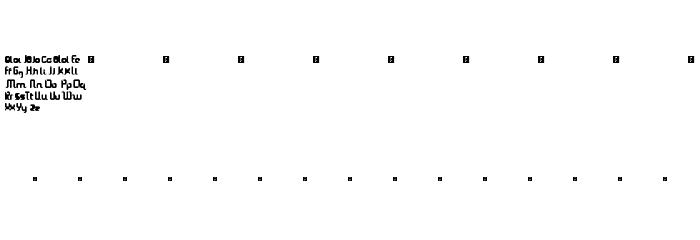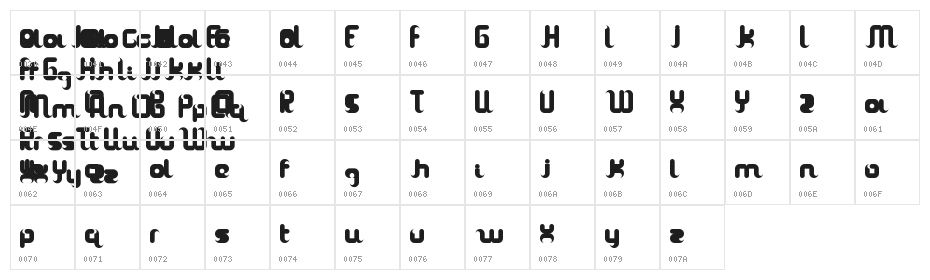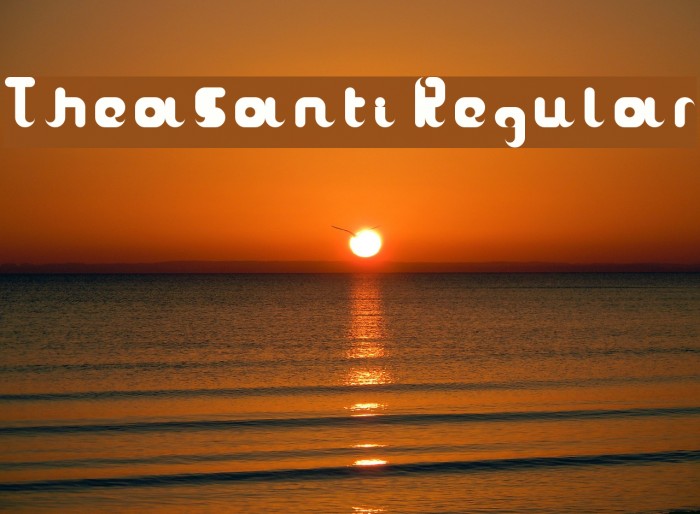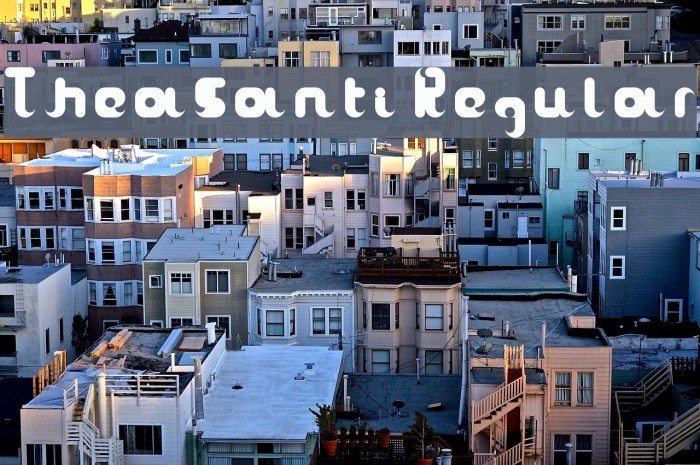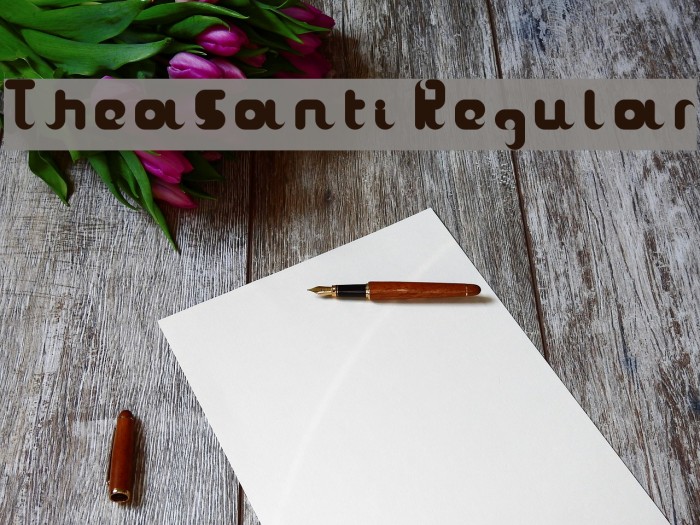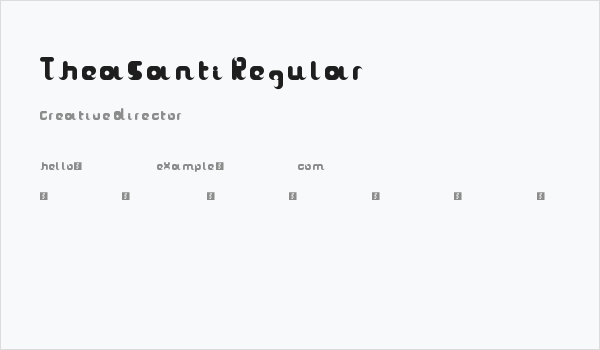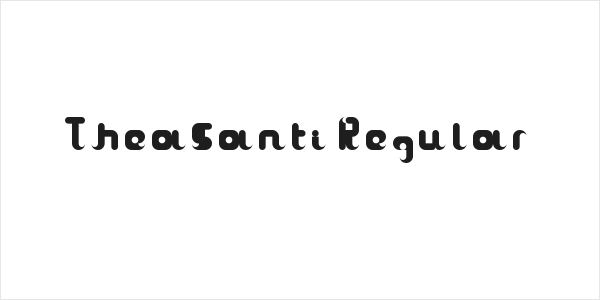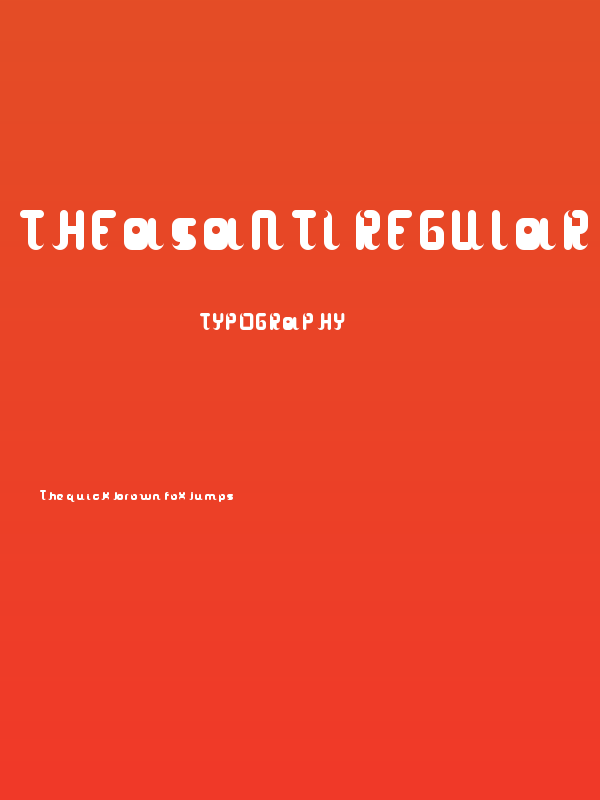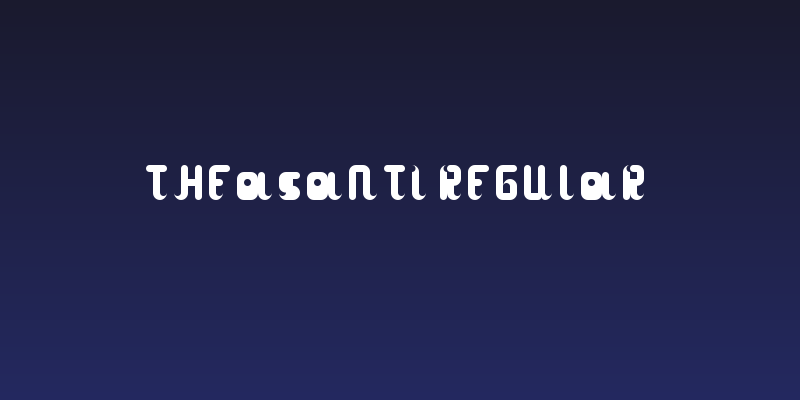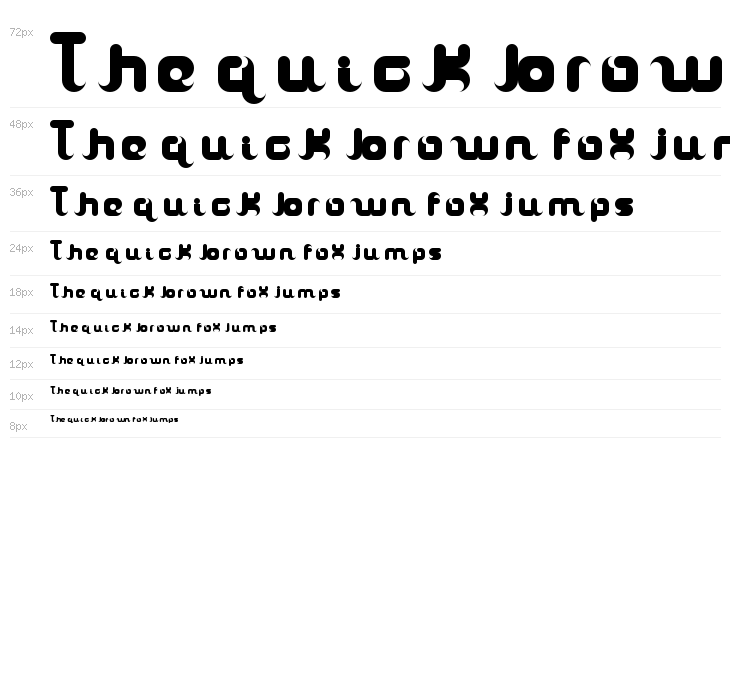
TheaSanti Regular Font
TheaSanti Regular Description
This font features a bold and modern design with a unique blend of geometric and organic shapes. The characters are rounded with a consistent thickness, giving it a smooth and cohesive appearance. The uppercase and lowercase letters maintain a uniform style, with subtle curves and a playful touch that adds character. The numbers and special characters follow the same design principles, ensuring a harmonious look across all elements. This font is ideal for projects that require a contemporary and eye-catching aesthetic.